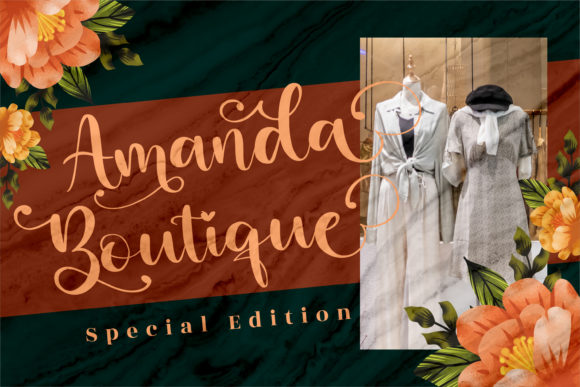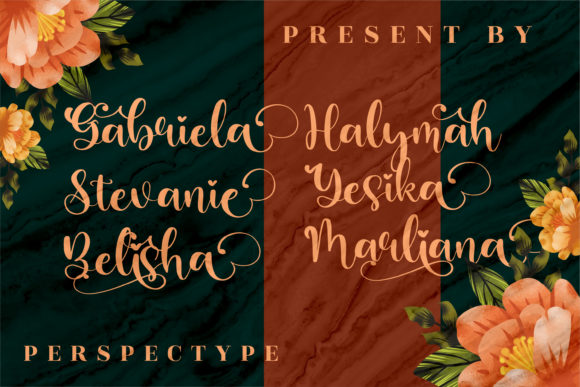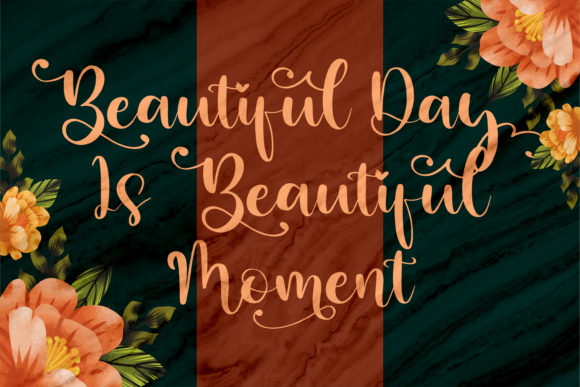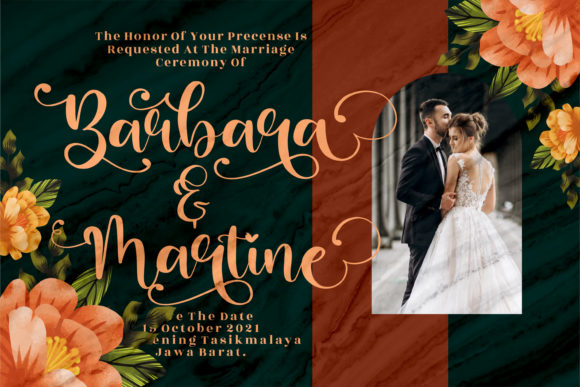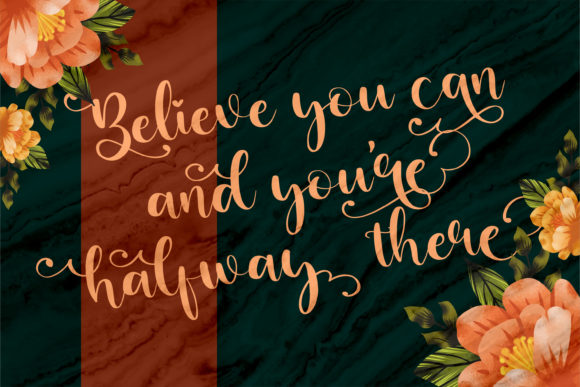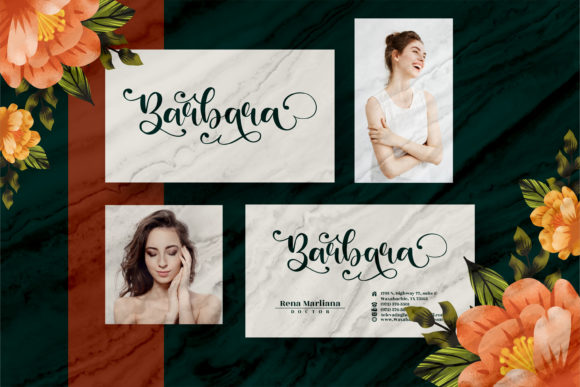
Introduction to Barbara Lattvia Font
Barbara Lattvia is a beautiful handwritten font featuring romantic characters and a clean calligraphic style.
It is perfectly suitable for any projects that need an authentic flair .
Key Features of Barbara Lattvia Font